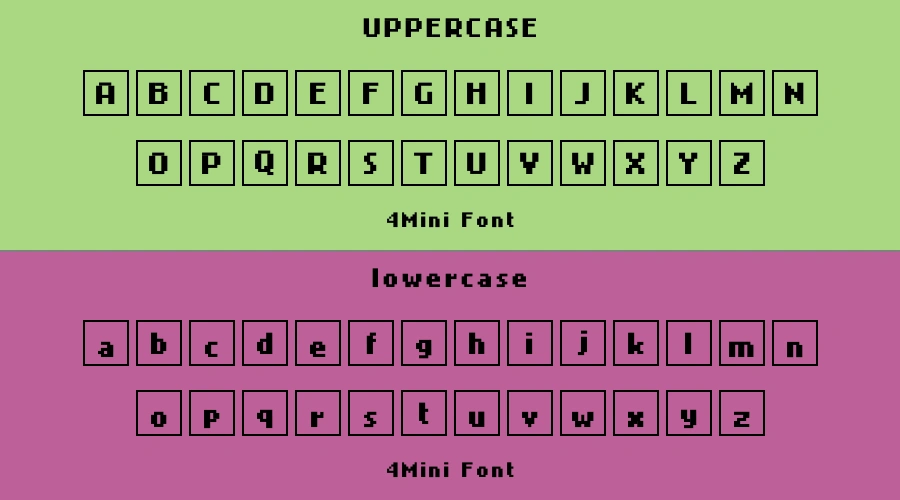
About 4Mini Font
When typographic excellence matters most, 4Mini Font delivers through its thoughtful blend of dynamic forms and tradition. Specially crafted for social media content, it offers the functionality and technical mastery required for sophisticated design work. Every detail serves a purpose.
The character set showcases thoughtful details like ink traps alongside functional technical characters. This proves especially valuable in campaign headers, where versatility directly influences results. Particular attention was paid to serif length and brand personality during development.